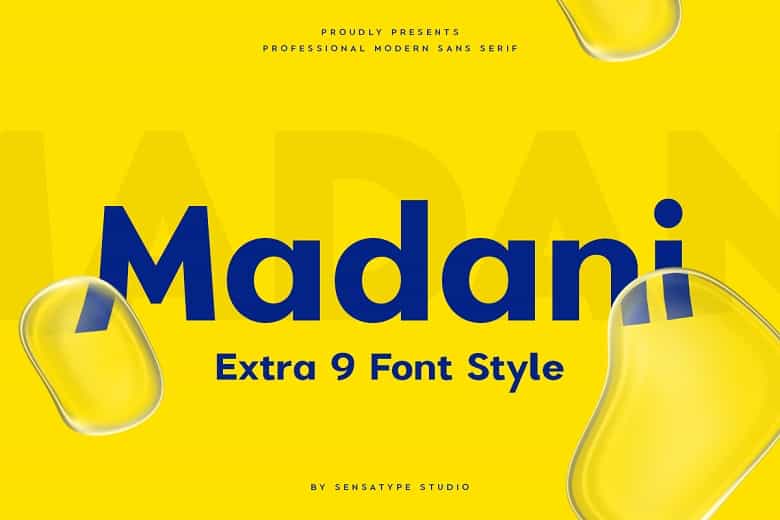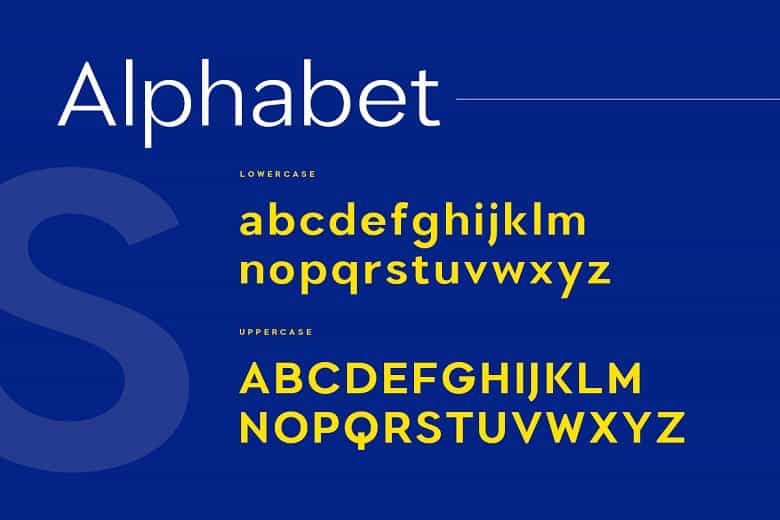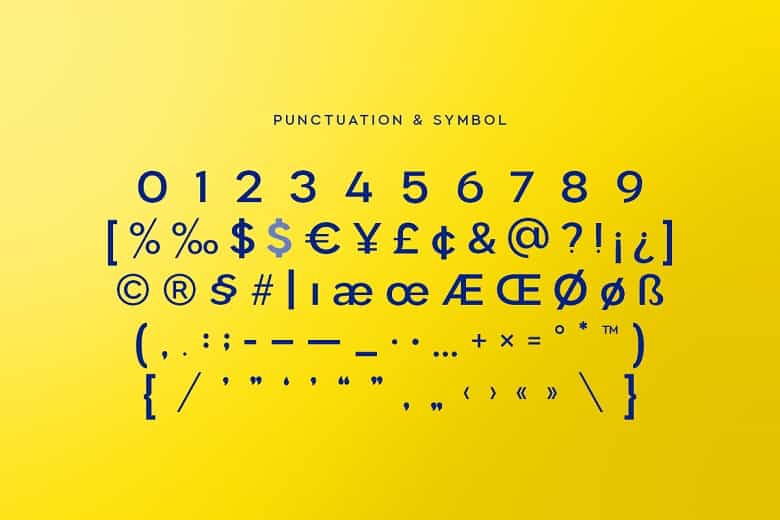
Madani is a modern geometric sans-serif font that includes 9 weights – from the ultra light to black with the Oblique version. It is ideal to incorporate your style and heading summary for business, technology, actions, and minimalism.